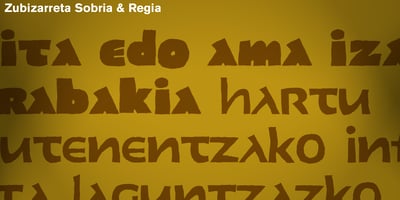
Zubizarreta Font Family was designed by Joan Barjau and published by Type-Ø-Tones. Zubizarreta contains 3 styles and family package options. In contrast to the traditional process, Zubizarreta was created with the technique of emptying ink out to shape the letterforms. Oddly enough, the result is a type reminiscent of Basque.